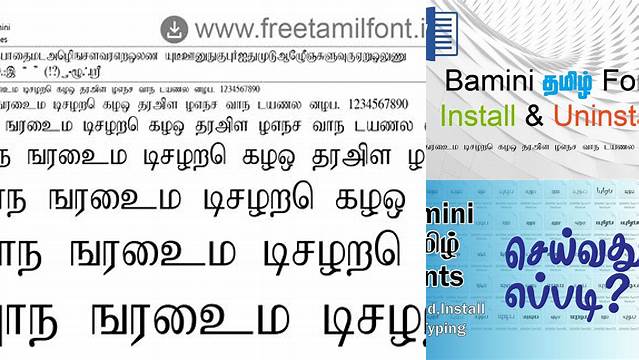
Understanding the Bamini Tamil Font: A Quick Overview
Alright, let's start with the basics. What exactly is the Bamini Tamil font, and why is it so popular? The Bamini font is a widely used and beloved Tamil font. It’s known for its clear readability and elegant design, making it perfect for a variety of uses, from writing documents and creating presentations to designing graphics. The font is designed to render the unique characters and symbols of the Tamil language beautifully, ensuring your text looks authentic and professional. When you download the Bamini Tamil font, you're not just getting a set of characters; you're gaining a tool that bridges the gap between digital text and traditional Tamil script. The Bamini Tamil font is loved by many people for its simplicity and ability to convey the nuances of the language in a visually appealing way. Many people prefer the Bamini font because it’s familiar, making it easy for both readers and writers to engage with the Tamil script in a digital environment. The Bamini Tamil font is incredibly versatile, suitable for everything from casual emails to official documents. It's a great asset if you want to enhance the visual appeal of your work. Its widespread use also means that compatibility issues are minimal, and you're likely to find support and resources readily available. So, Bamini is more than just a font; it’s a part of the Tamil digital heritage.
Characteristics and Features of Bamini Font
The Bamini Tamil font boasts several key features that make it stand out. First off, its readability is top-notch. The design of the characters is carefully crafted to ensure that each letter is clearly distinguishable, even at smaller sizes, making it very user-friendly. The font supports a comprehensive range of Tamil characters, including all the vowels, consonants, and special symbols necessary for writing any Tamil text. This ensures that you can express yourself fully without any limitations. Another notable feature is its consistency. The font is designed to render smoothly across different platforms and applications, so you won't face weird distortions or missing characters. The Bamini font also has good spacing and kerning, which improves its overall appearance and readability. This is super important for making sure your text looks polished and easy to read, whether it's a long article or just a short message. Because the Bamini font is so well-designed, it works really well for all kinds of documents, from simple notes to complex projects. Its features make it a reliable and versatile choice for anyone looking to use a Tamil font.